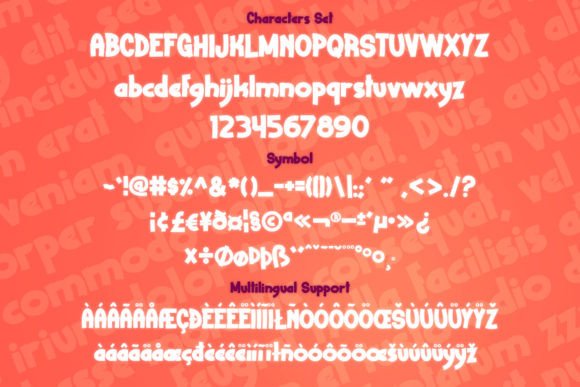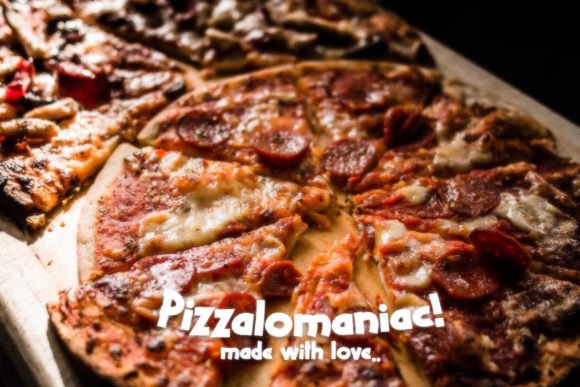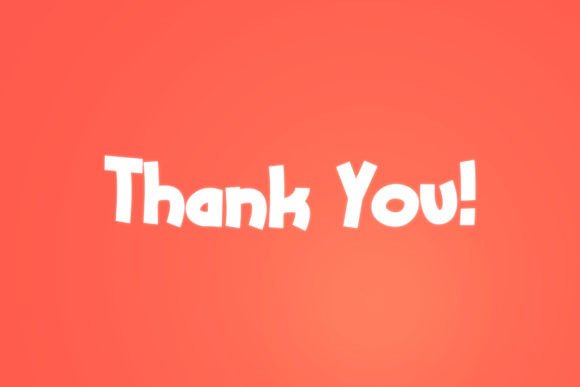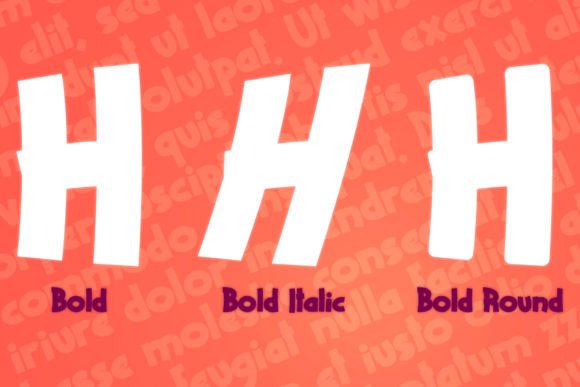
Introduction to Hungry Pizza Font
Have you ever stared at a blank canvas, eager to bring your creative vision to life, only to be stopped in your tracks by the perfect font? That’s where Hungry Pizza Font comes in – a versatile display font that’s sure to satisfy your design cravings.
As a designer, you know how crucial the right font can be in elevating your project from meh to mesmerizing. That’s why we’re excited to introduce you to Hungry Pizza Font, a high-quality design resource that’s perfect for a wide range of applications, from greeting cards to headlines.
Key Features of Hungry Pizza Font
- High-quality, bold font design ideal for creative projects and advertisements
- Features a transparent background, allowing for easy customization and layering in design compositions
- Designed specifically for use in bold, eye-catching headings and titles, adding a playful touch to any design project
- Perfect for use in food-related branding, packaging, and marketing materials, or as a unique element in non-food related creative projects
Honest Review: Hungry Pizza Font
I recently had the chance to try out the Hungry Pizza Font, and I must say it’s been a delightful experience. As a designer, I’m always on the lookout for high-quality design resources that can elevate my creative projects. And I’m happy to report that this font definitely delivers.
- ✨ The quality of the font is superb, with crisp lines and a clear, readable text.
- ⚠️ The font is quite playful and may not be suitable for all types of projects (e.g. corporate or formal designs).
- ⚠️ Some users may find the font’s playful feel to be too gimmicky or overused.
Overall, I’m impressed with the Hungry Pizza Font. It’s a fun and creative resource that’s perfect for designers looking to add some personality to their projects. While it may not be suitable for all types of designs, it’s definitely worth checking out if you’re looking for a high-quality, free font to spice up your creative project.
The Hungry Pizza Font is a free download that can elevate your creative project to the next level. This high-quality font is designed to add a touch of fun and playfulness to your designs.
The Hungry Pizza Font is ideal for use in a variety of creative projects, including:
- Food-related designs
- Children’s party invitations
- Restaurant menus
- Brand identities